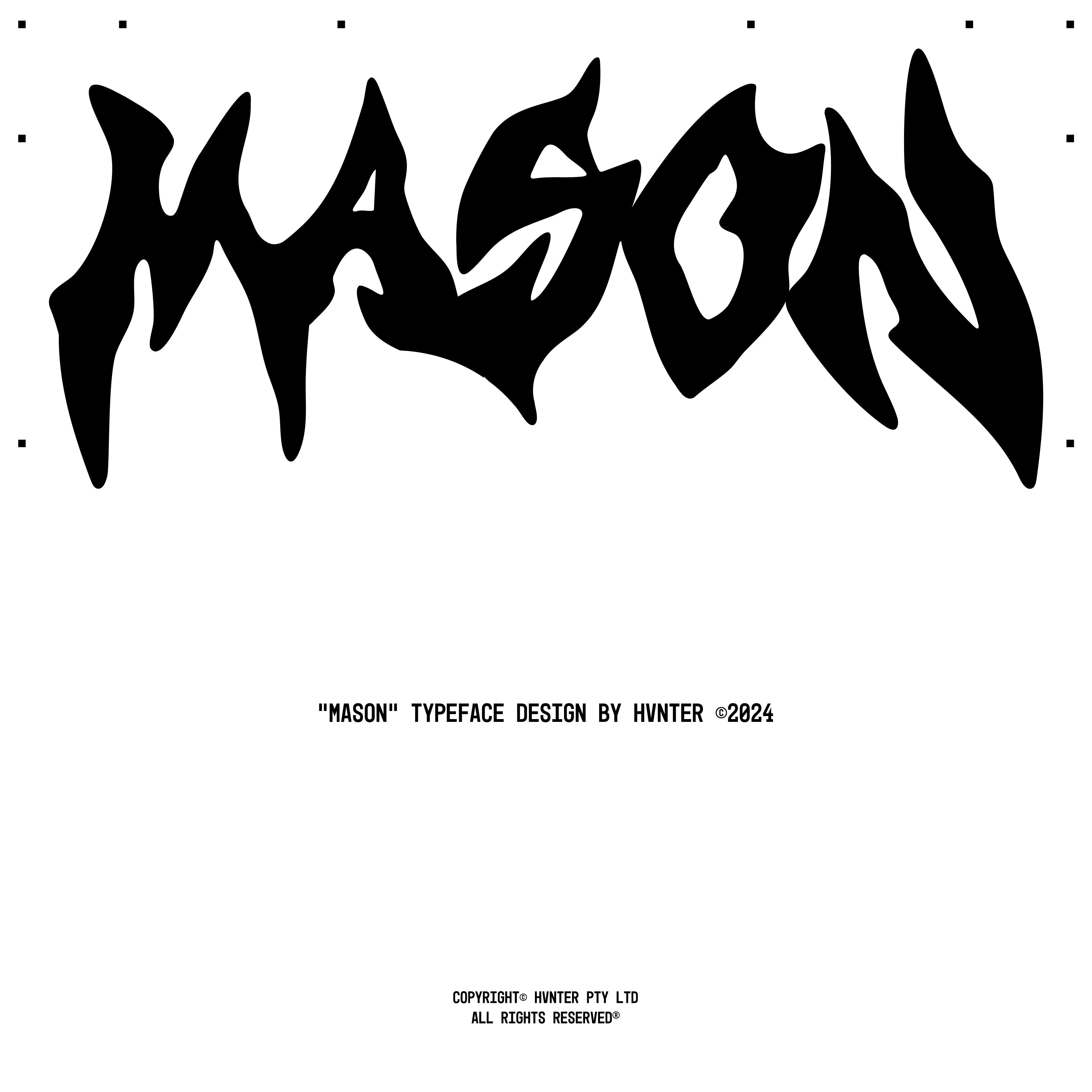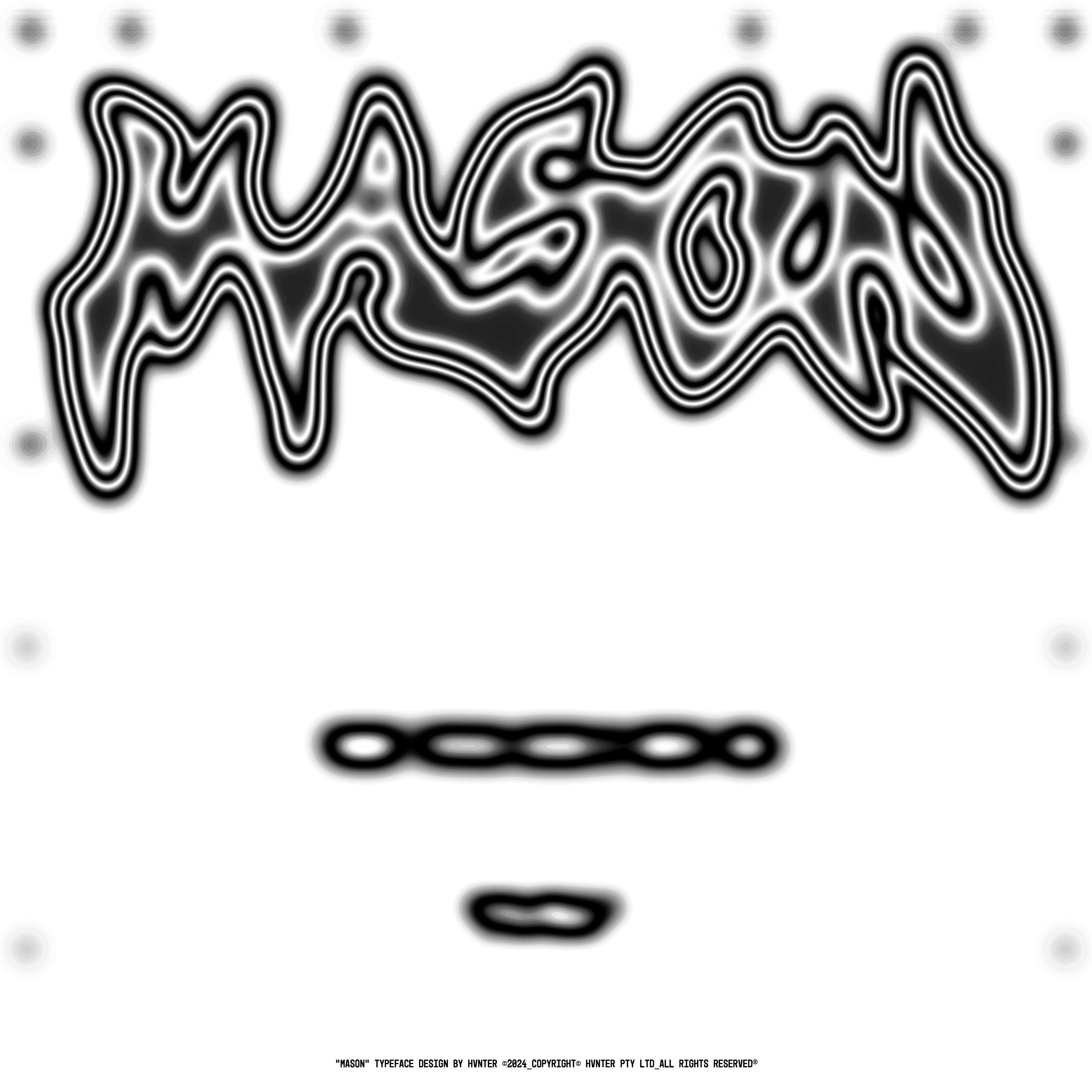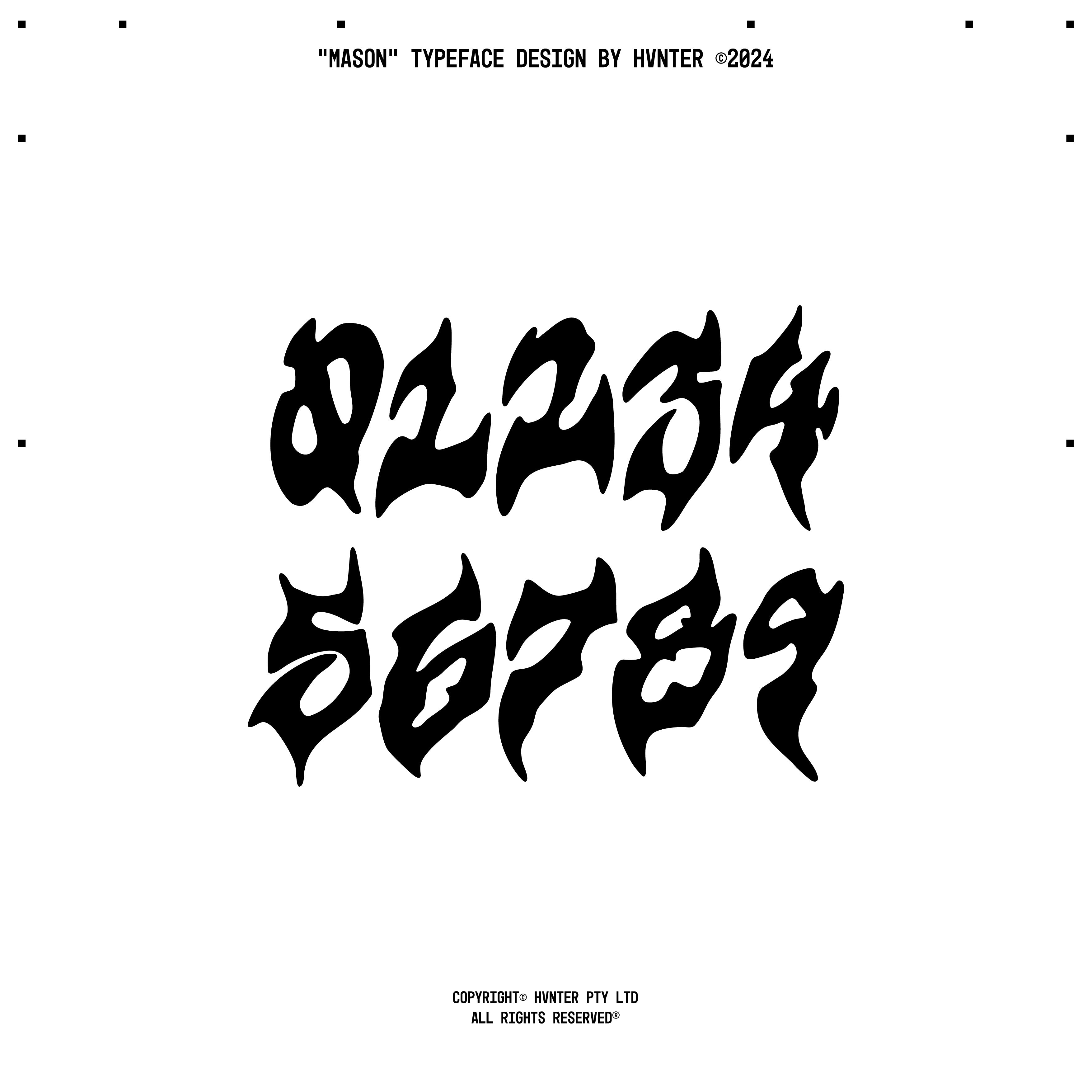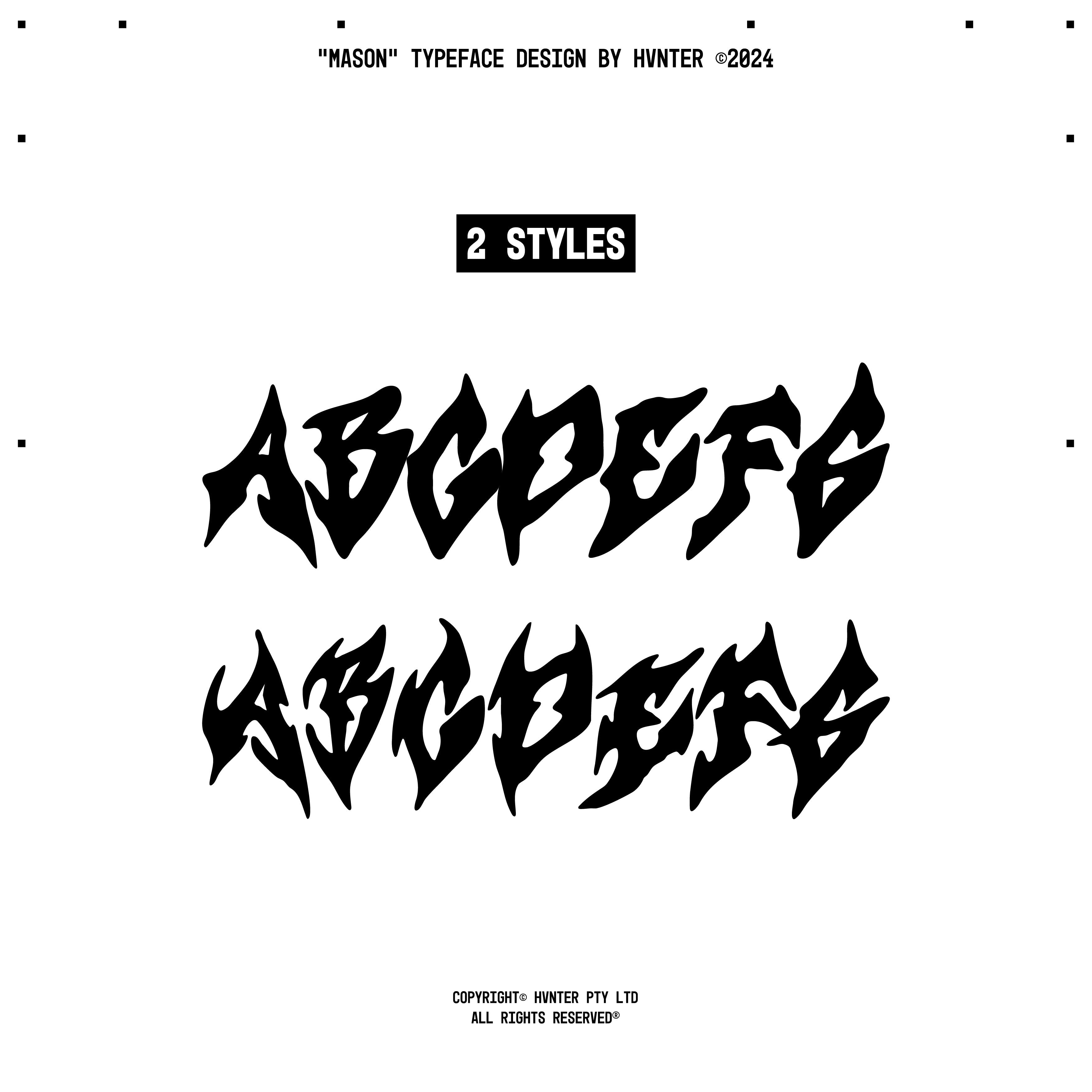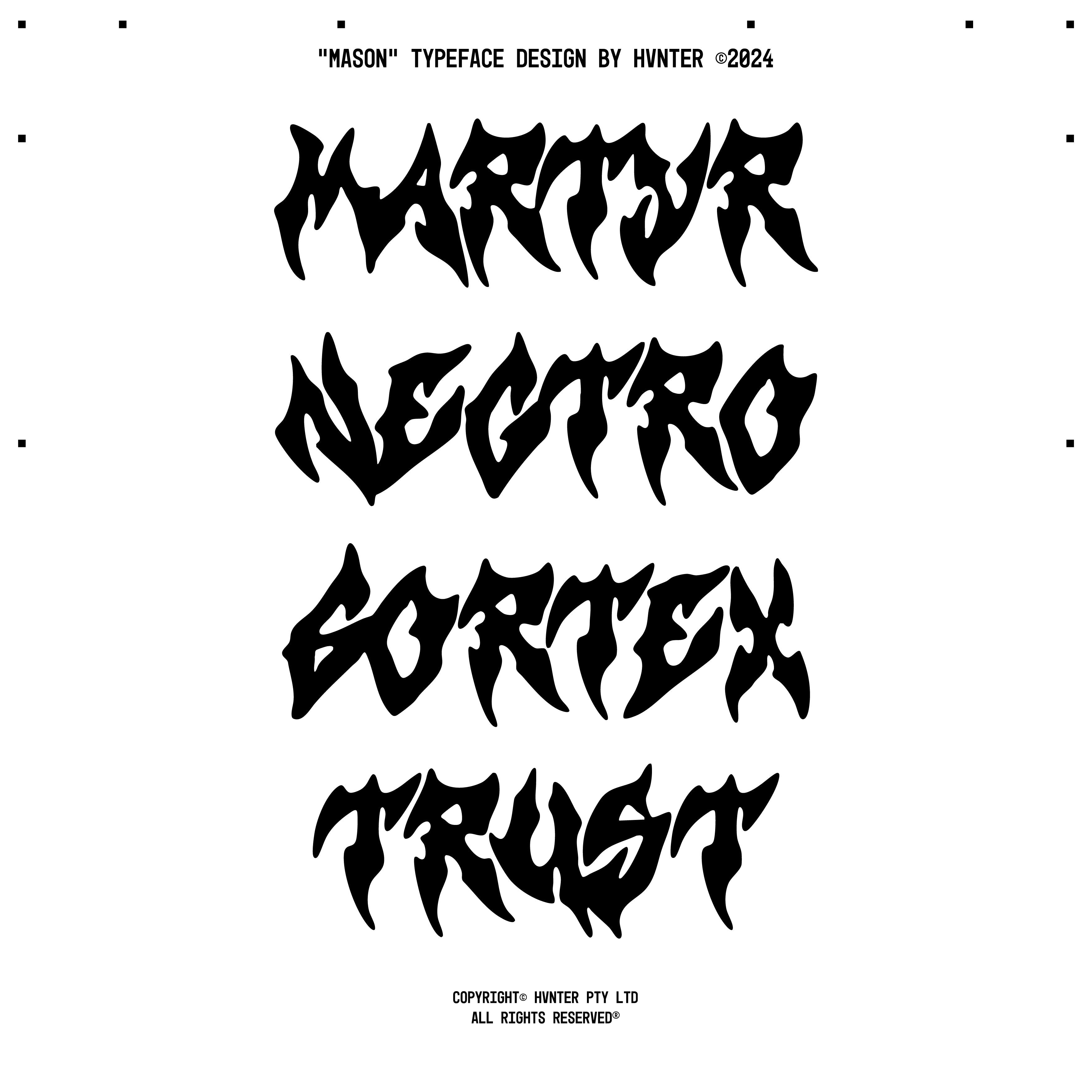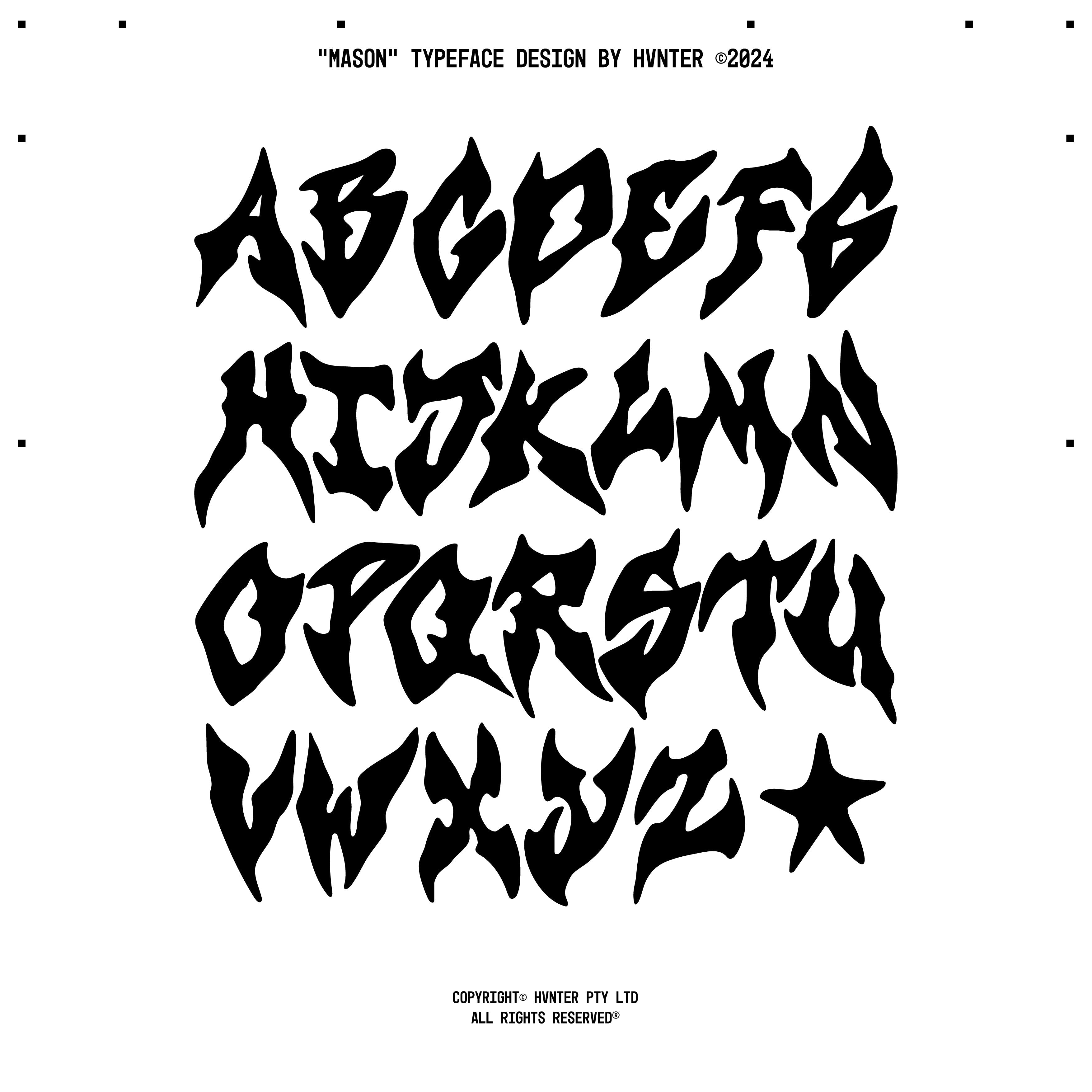
Mason Typeface
hvnter
Hand drawn, soft metal typeface.
Includes 2 styles: A-Z, 0-9
The Mason Typeface is a hand-drawn, soft metal typeface that comes in two styles: A-Z and 0-9. Its design is characterized by elements of grunge and heavy metal, making it a bold choice for display and street-themed applications.